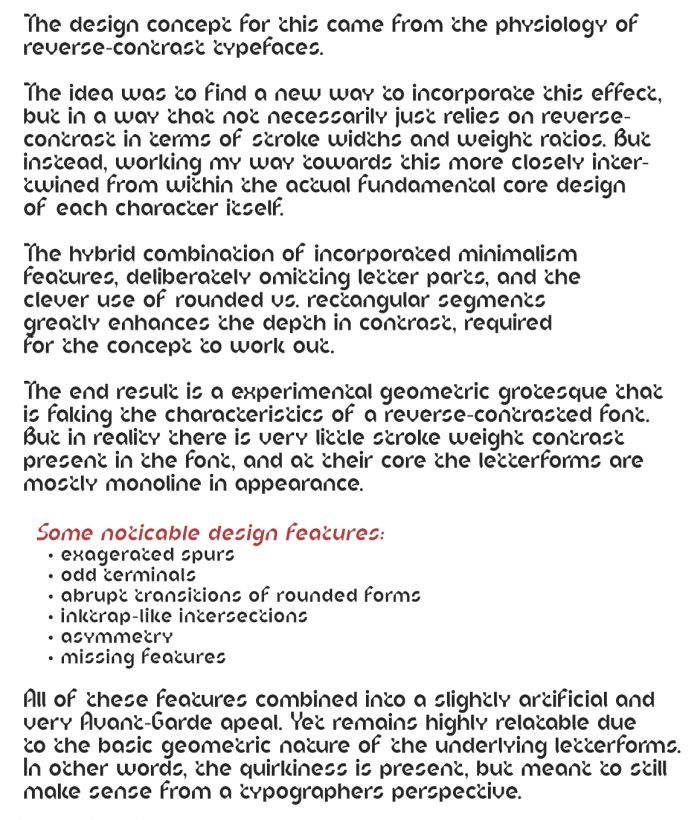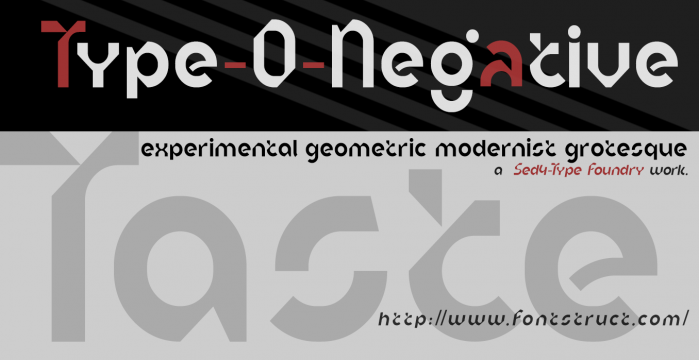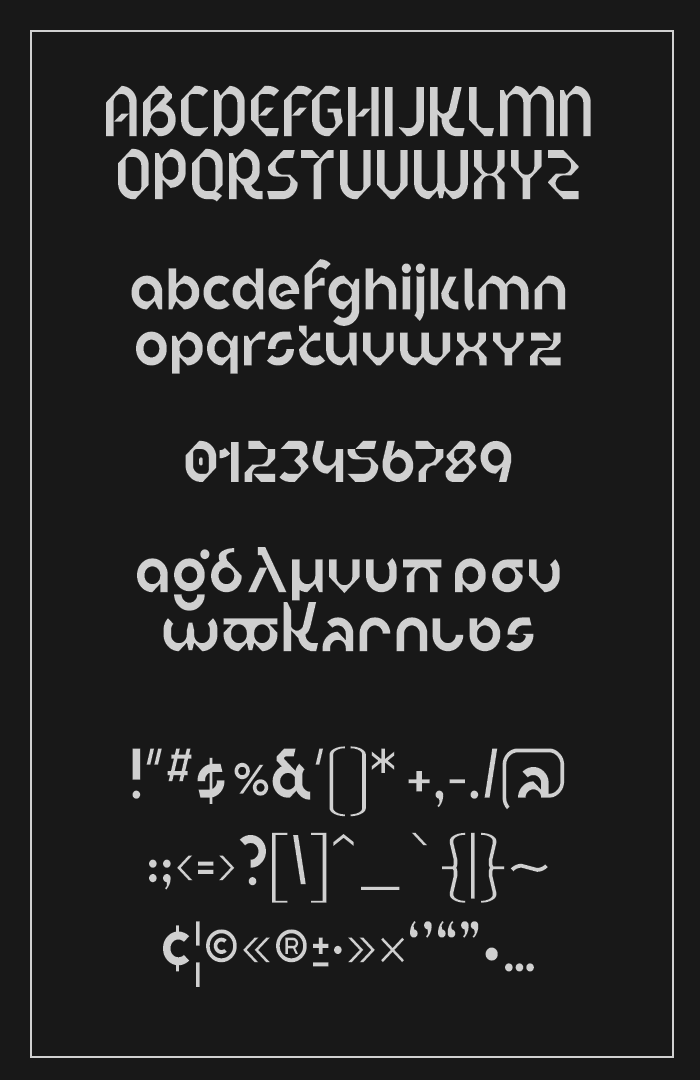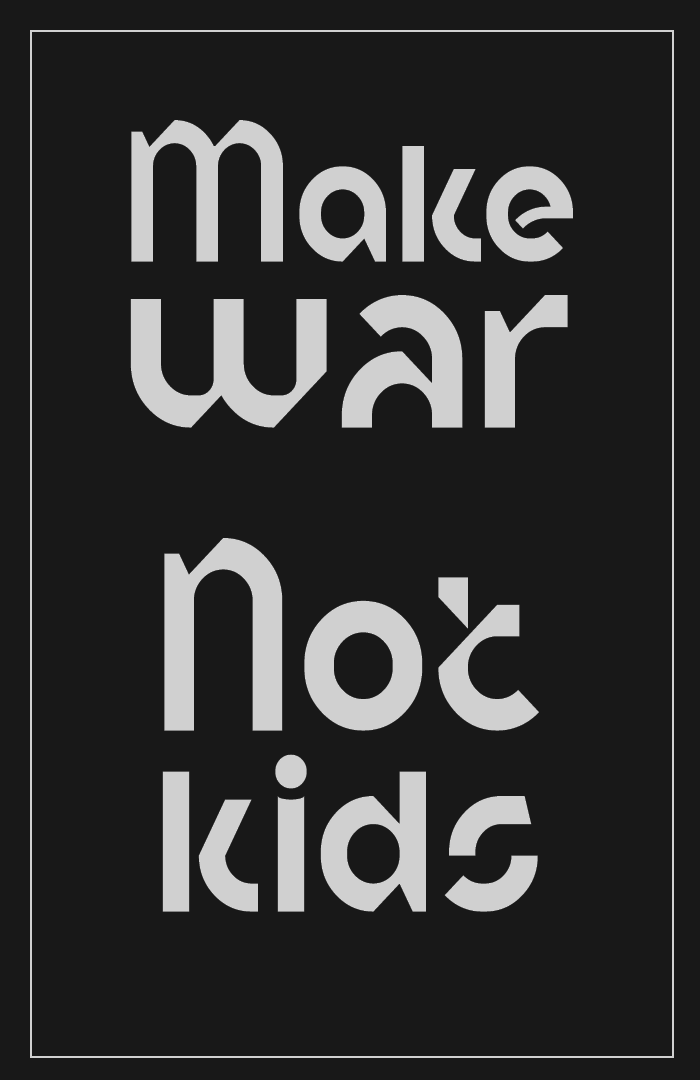
STF_TYPE-O-NEG4TIVE
by Sed4tives
TYPE-O-NEG4TIVE ― Avant-Garde reverse-contrast inspired sans
Experimental endeavor into avant-garde, reversed-contrast inspired letterforms.
A surprising style, I love the use of slopes and 'crazy' inspired combination of bricks. It has a touch of black-letter combined with old slavic styles. Legible as much through the bricks as through the brickless areas in the glyph shape, very impressive. 10/10 and fav
Looks great! Reminds me of this obscure '60s-'70s typface called Nippy Bold: